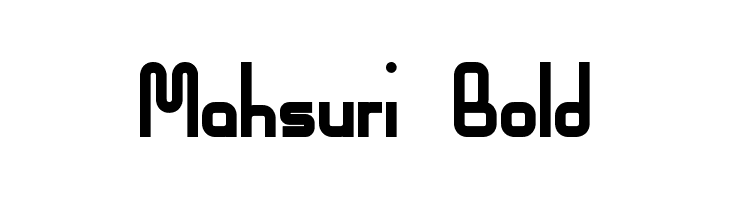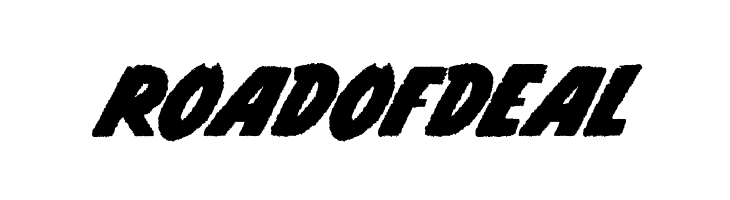
A decorative font with fragmented characters in bold circular frames.
A bold, high-contrast font with a playful and artistic design.
A sleek, semi-italic font with a modern, dynamic style.
( Pixel Sagas - Neale and Shayna Davidson - www.pixelsagas.com )
A bold, geometric font with a futuristic and modern aesthetic.
( Typodermic Fonts - Ray Larabie - www.typodermicfonts.com/ )
A sleek, modern italic font with dynamic and energetic styling.
( Genshichi Yasui - www.jttk.zaq.ne.jp/babwp701/hpfont/font.html )
A pixelated, retro font inspired by classic arcade games.
A bold, dynamic script font with flowing, interconnected characters.
( گالری فانت فارسی پژوهش آريانا - only compatible with Farsi and Arabic )
A playful, hand-drawn font with quirky, uneven strokes and a whimsical style.
( Fonts by Izabela de Lima - elfadophotoscape.blogspot.com.br )
A modern, elegant font with flowing uppercase and structured lowercase letters.
( Fonts by Disaster Fonts )
A geometric, angular font with a futuristic and technical design.